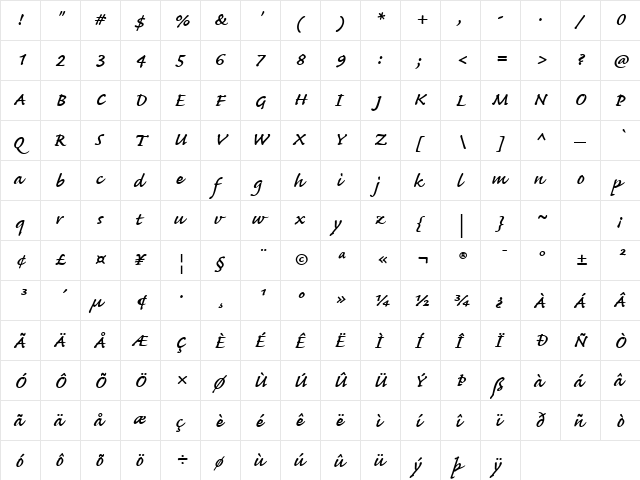
Caflisch Script Pro Light Bold
| Designer | Robert Slimbach |
Design Context for Caflisch Script Pro Light Typeface
Caflisch Script Pro Light brings a calligraphic fluidity to the page — its connecting strokes and expressive curves give it an unmistakably human quality. The heavy weight commands attention and anchors typographic hierarchies.